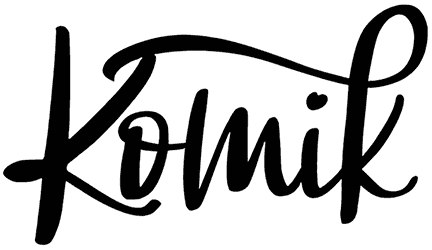
Komik Font
Komik is a script font that offers a friendly vibe and is designed with a feminine touch. This handwritten font creates a realistic state in your projects and will create a good distance from digital and machine states.…
Komik is a script font that offers a friendly vibe and is designed with a feminine touch. This handwritten font creates a realistic state in your projects and will create a good distance from digital and machine states.
So, if you need to emphasize the meaning of your designs and want to reduce the existing decorations as much as possible, yet refer to this romantic font, Komik is used for greeting cards, wedding invitations, and friendly letters.